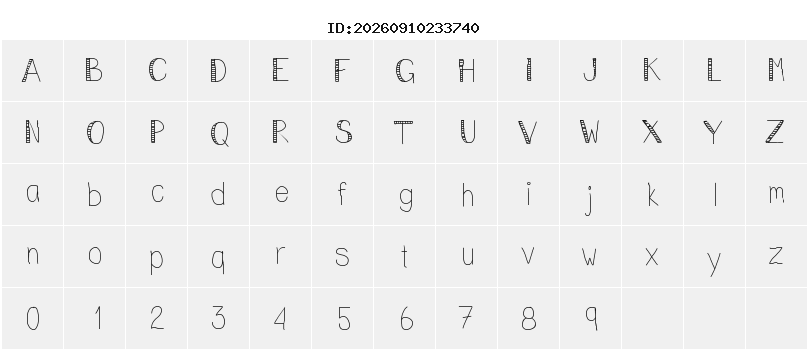
VincentStreet Preview
• Font Name: VincentStreet
About VincentStreet.ttf
VincentStreet.ttf is a modern, elegant sans-serif font designed for ultimate readability and visual harmony. Perfect for branding, headlines, web design, and print materials.